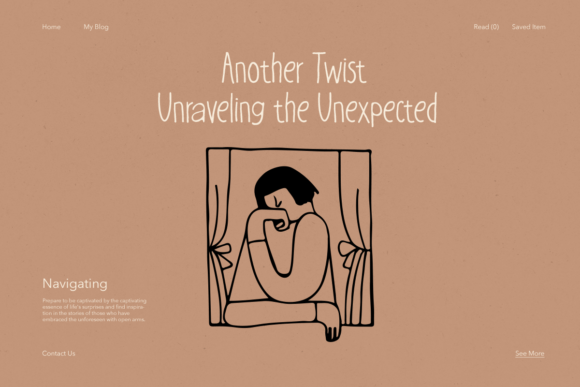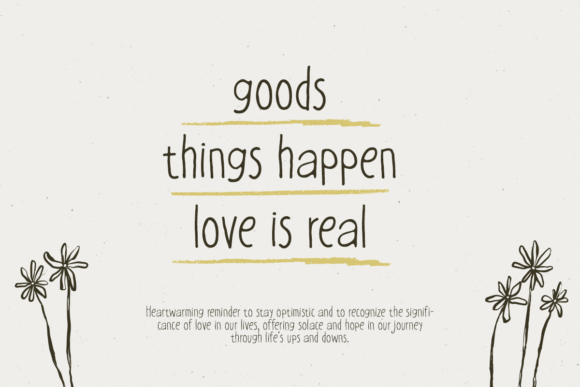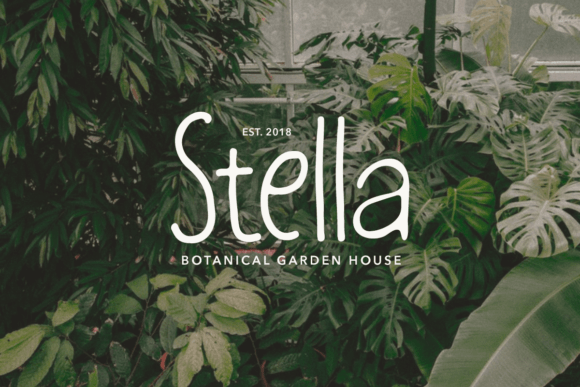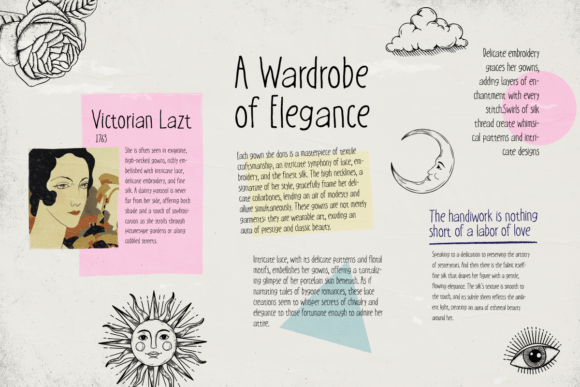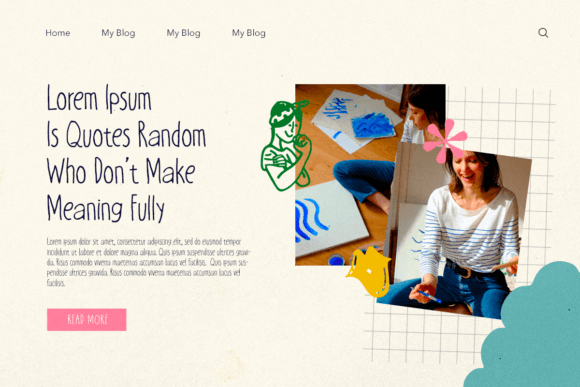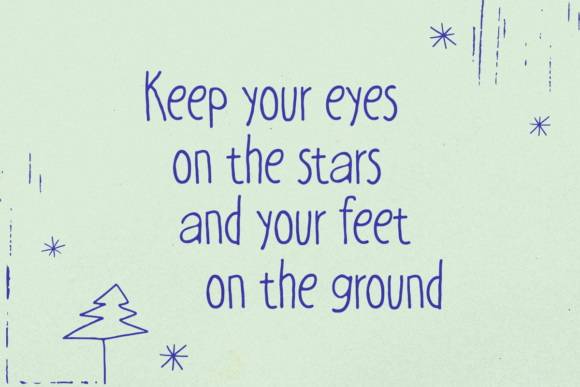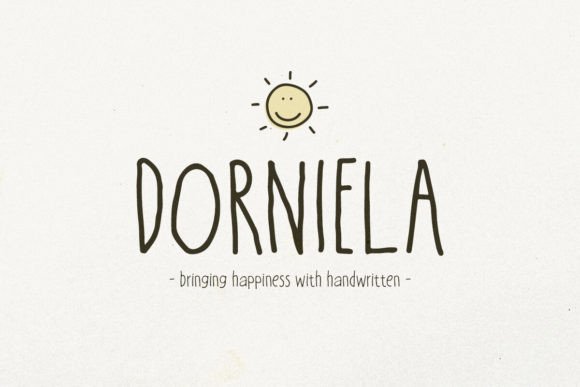
Introducing Dorniela Font: Whimsy and Charm for Your Creative Projects
Are you tired of using the same old fonts for your designs? Do you want to add a touch of magic and whimsy to your creative projects? Look no further than Dorniela, a charming and delightful font that’s sure to bring a smile to your face. With a name that evokes the magic of fairy tales and the essence of all things cute, Dorniela is your ticket to a world of adorable design possibilities.
The Story Behind Dorniela
Dorniela is more than just a font – it’s an experience. Inspired by the sweetness and innocence of childhood, Dorniela is designed to transport you to a world of wonder and enchantment. Whether you’re a designer, crafty DIY enthusiast, or simply someone who loves to get creative, Dorniela is the perfect companion for your next project.
What Makes Dorniela So Special?
So, what sets Dorniela apart from other fonts? Here are just a few features that make this font truly special:
- Unique and Quirky Design: Dorniela’s playful design is full of personality and charm. With its rounded edges and whimsical flair, this font is sure to add a touch of magic to any project.
- Highly Versatile: Whether you’re designing a logo, crafting a handmade card, or creating a social media graphic, Dorniela is the perfect choice. This font is highly versatile and can be used for a wide range of creative projects.
- Easy to Read: Despite its playful design, Dorniela is surprisingly easy to read. This makes it perfect for use in body text, headlines, and more.
- Extensive Character Set: Dorniela comes with an extensive character set, including uppercase and lowercase letters, numbers, and punctuation. This means you can create a wide range of designs without running out of options.
Using Dorniela in Your Designs
So, how can you use Dorniela in your designs? The possibilities are endless! Here are a few ideas to get you started:
- Create a Whimsical Logo: Use Dorniela to create a logo that’s full of personality and charm. Perfect for crafty businesses, bloggers, or social media influencers.
- Make a Handmade Card: Add a personal touch to your handmade cards with Dorniela. This font is perfect for creating custom greetings, invitations, and more.
- Design a Social Media Graphic: Use Dorniela to create eye-catching social media graphics that are sure to stand out. Perfect for promoting your business, sharing quotes, or highlighting your favorite products.
Tips for Getting the Most Out of Dorniela
Here are a few tips for getting the most out of Dorniela:
- Experiment with Different Sizes: Dorniela looks great in a variety of sizes, from small and delicate to large and bold. Experiment with different sizes to find the perfect fit for your design.
- Pair with Other Fonts: Dorniela pairs perfectly with other fonts, especially those with a more modern or minimalist design. Try pairing Dorniela with a clean sans-serif font for a striking contrast.
- Use in Combination with Images: Dorniela looks great when used in combination with images, especially those with a whimsical or playful theme. Try using Dorniela to add text to a photo or illustration.